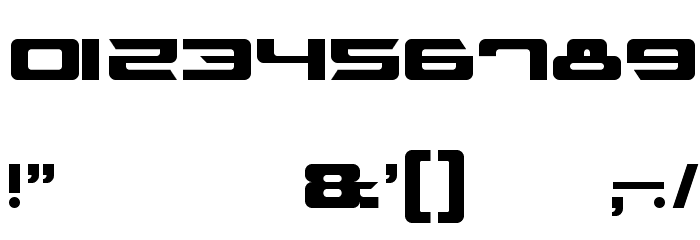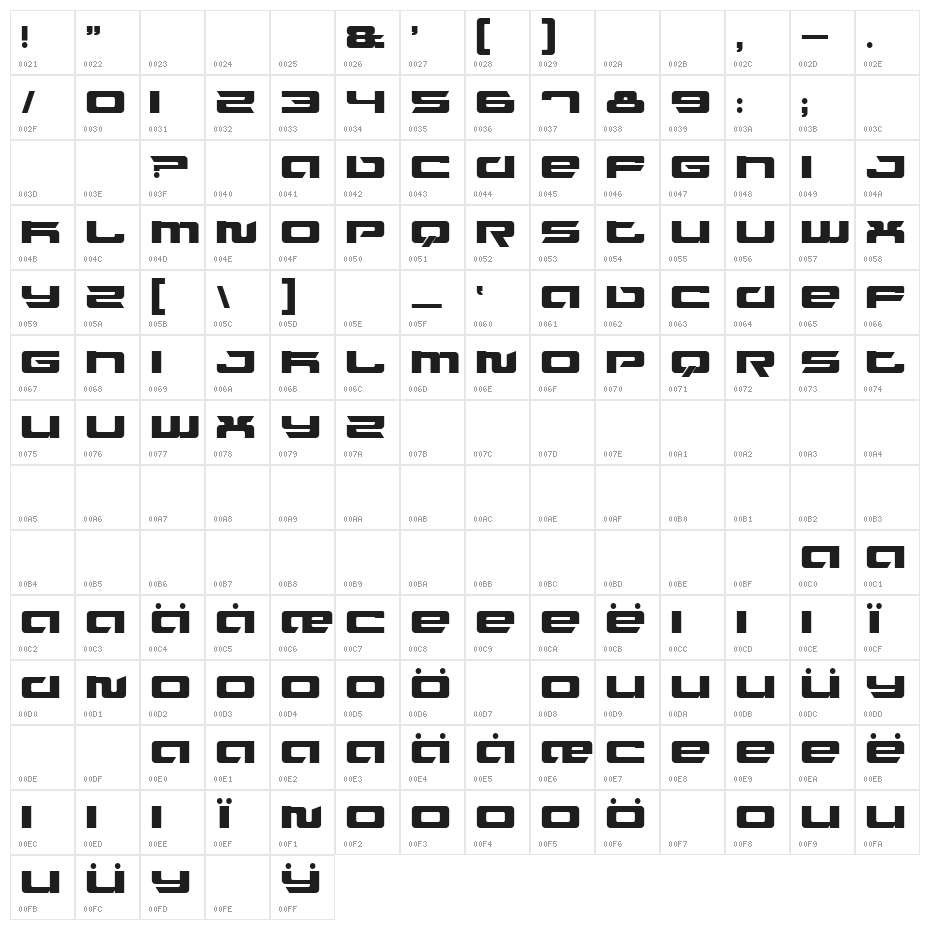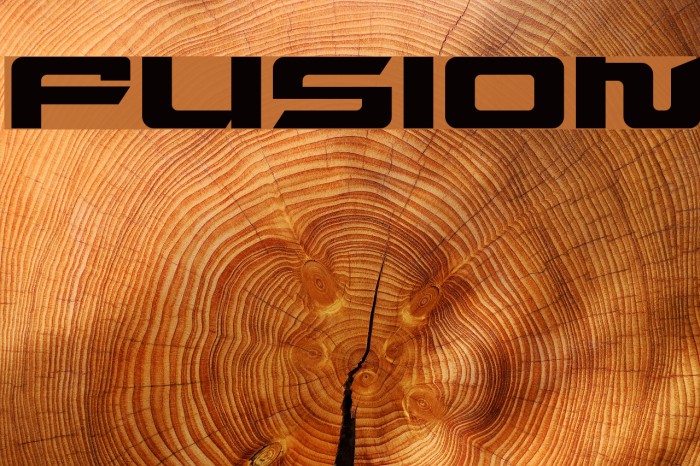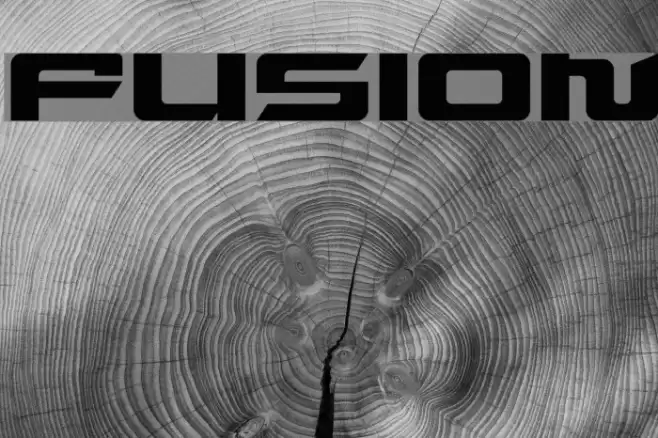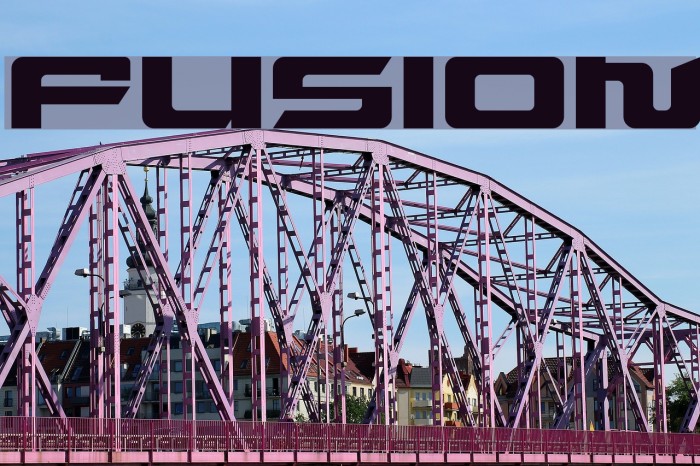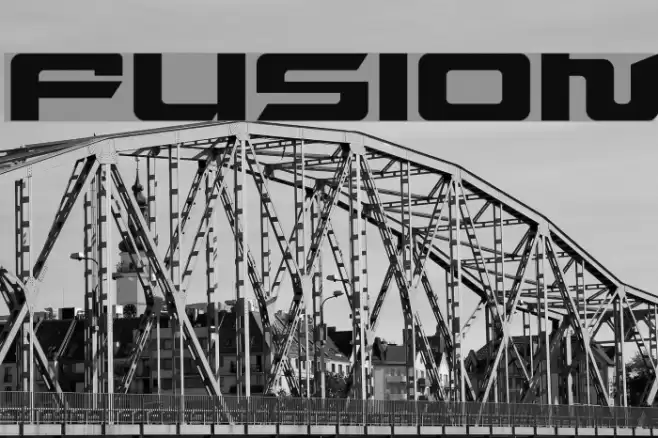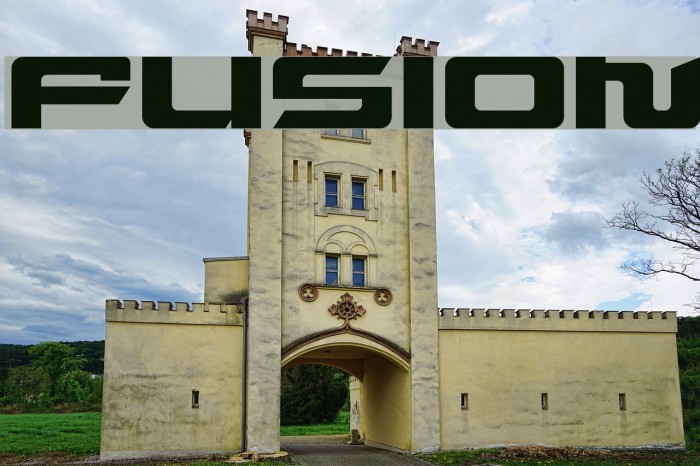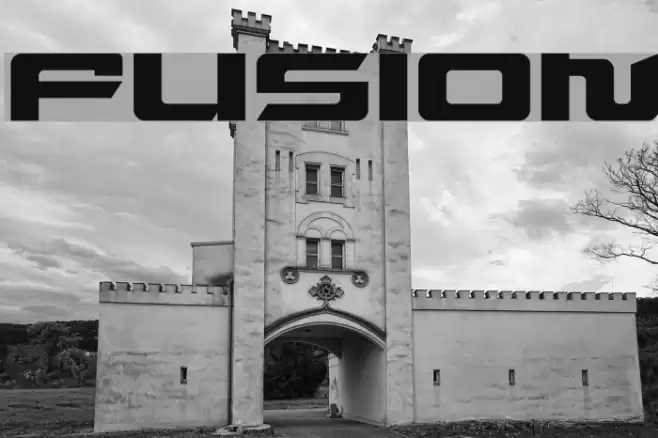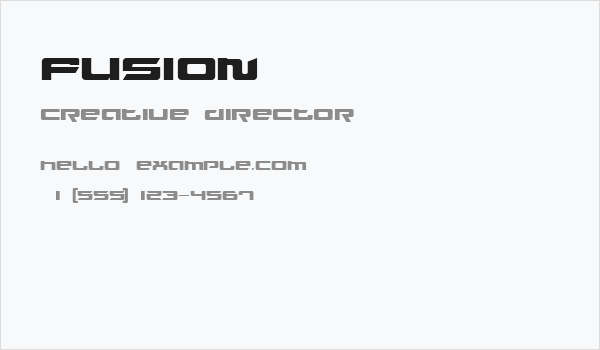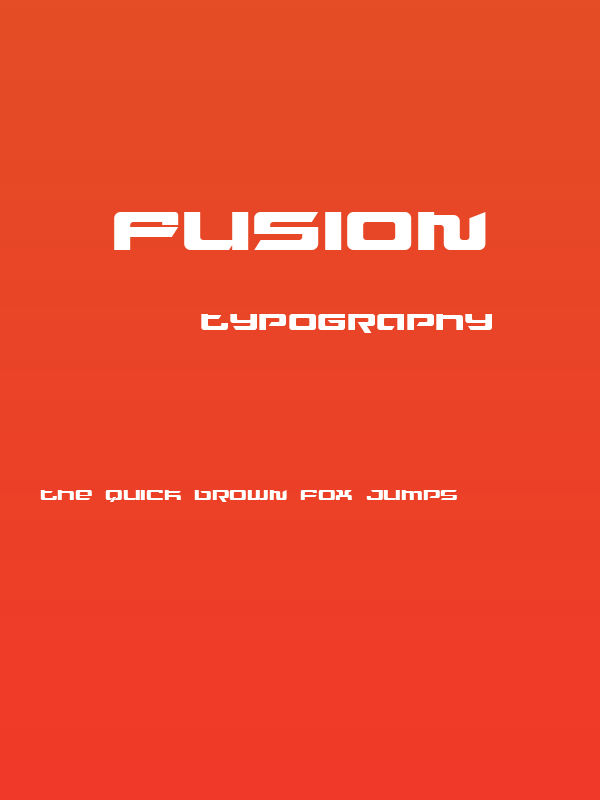
Fusion Font
Fusion Description
This font features a bold, futuristic design with a strong geometric structure. The characters are uniformly wide, with a distinct blocky appearance that gives them a modern and technological feel. The uppercase and lowercase letters share a similar style, maintaining a consistent look across the alphabet. The numbers and special characters are designed to match the boldness and angularity of the letters, ensuring a cohesive appearance. This font is ideal for projects that require a modern, edgy aesthetic, such as technology branding, sci-fi themes, or video game titles.
| Proposed Projects | Ideal for technology branding, sci-fi themes, video game titles, and modern advertising. |